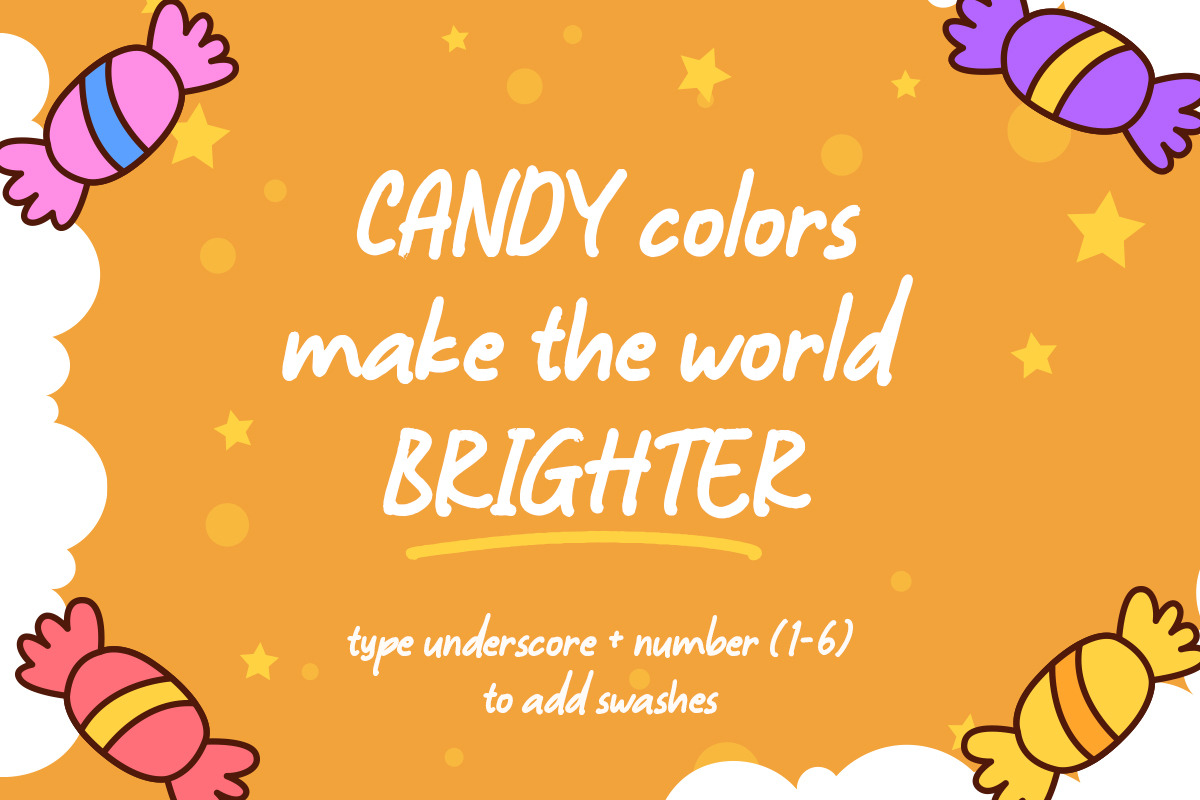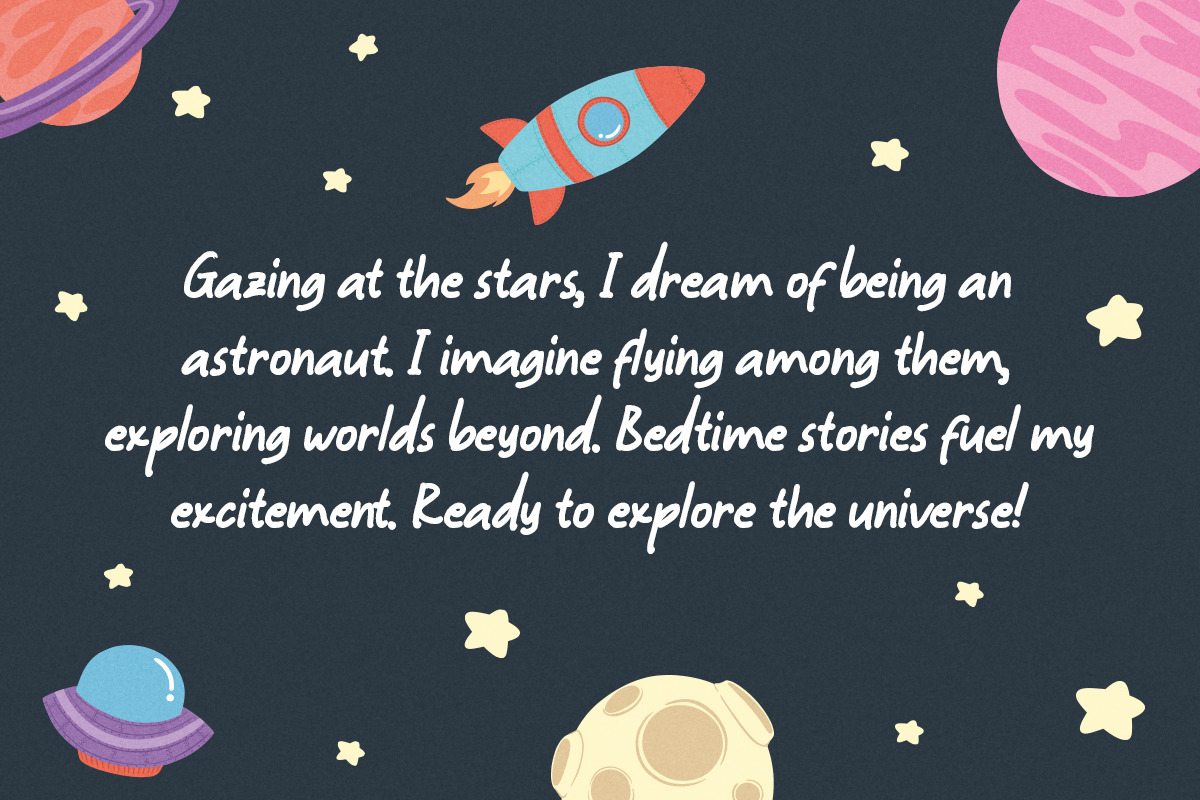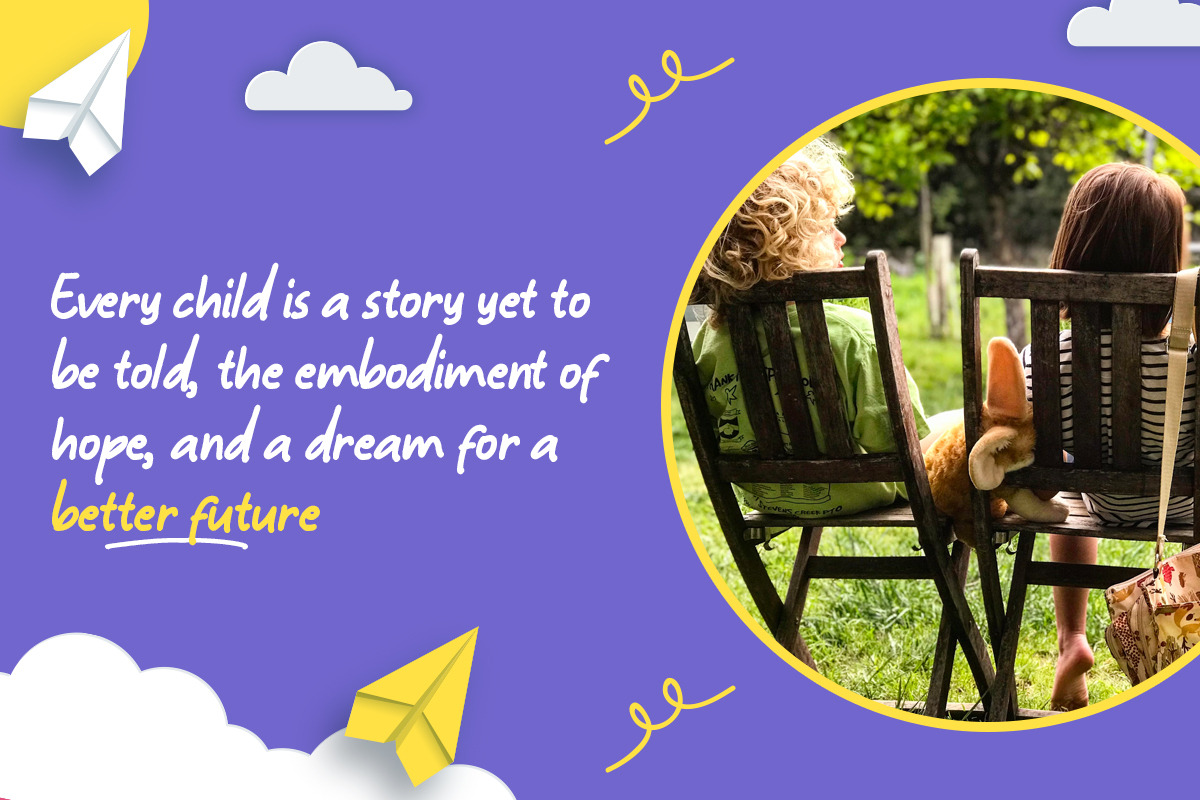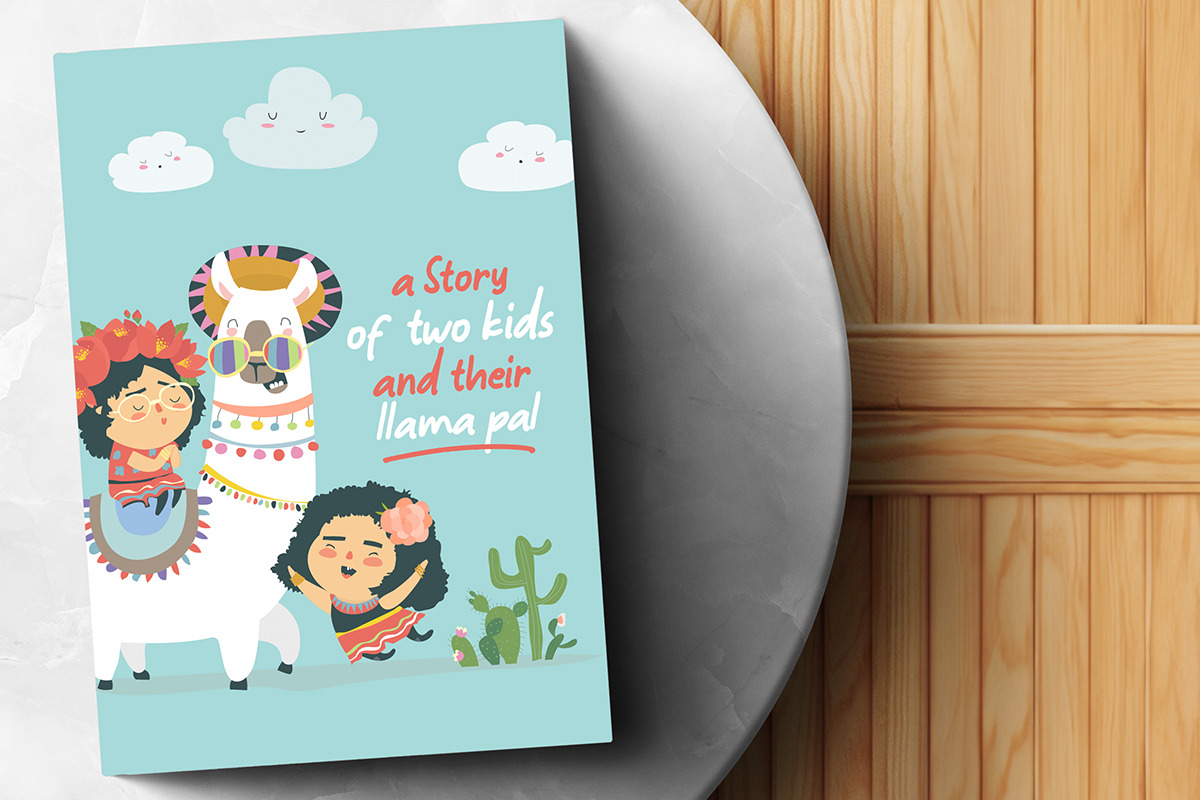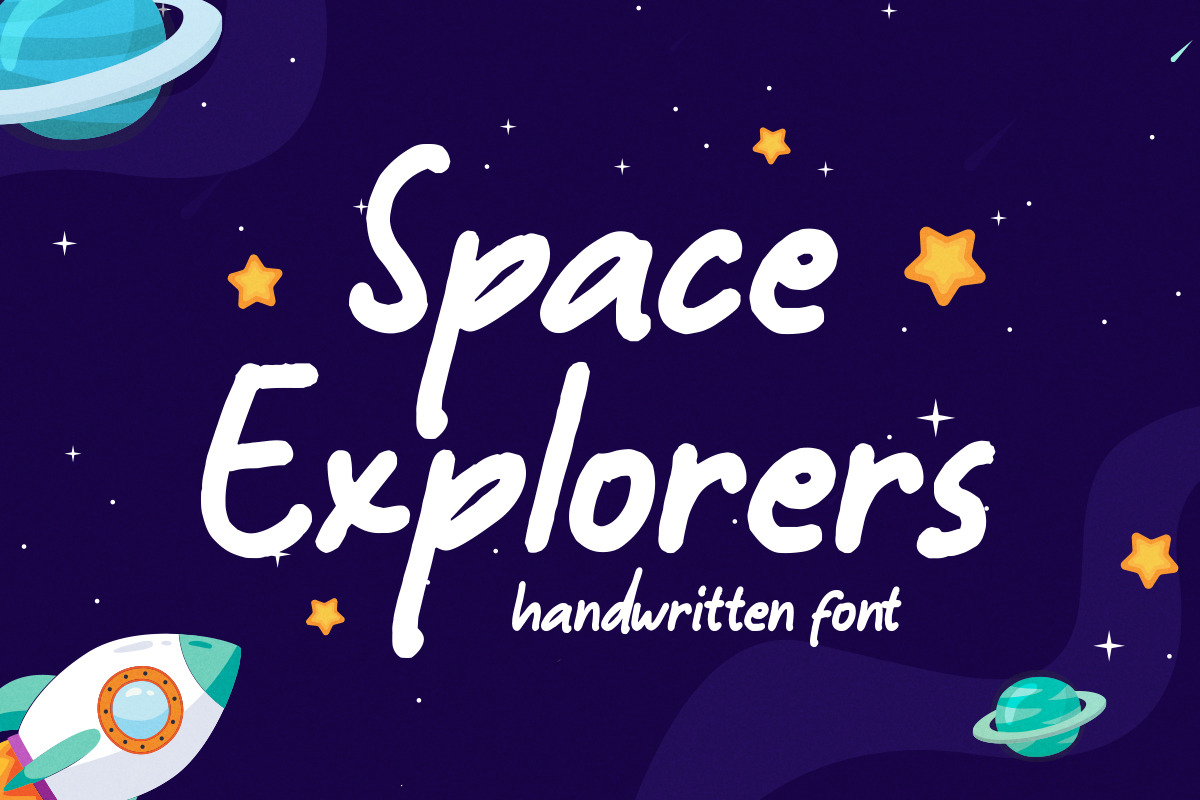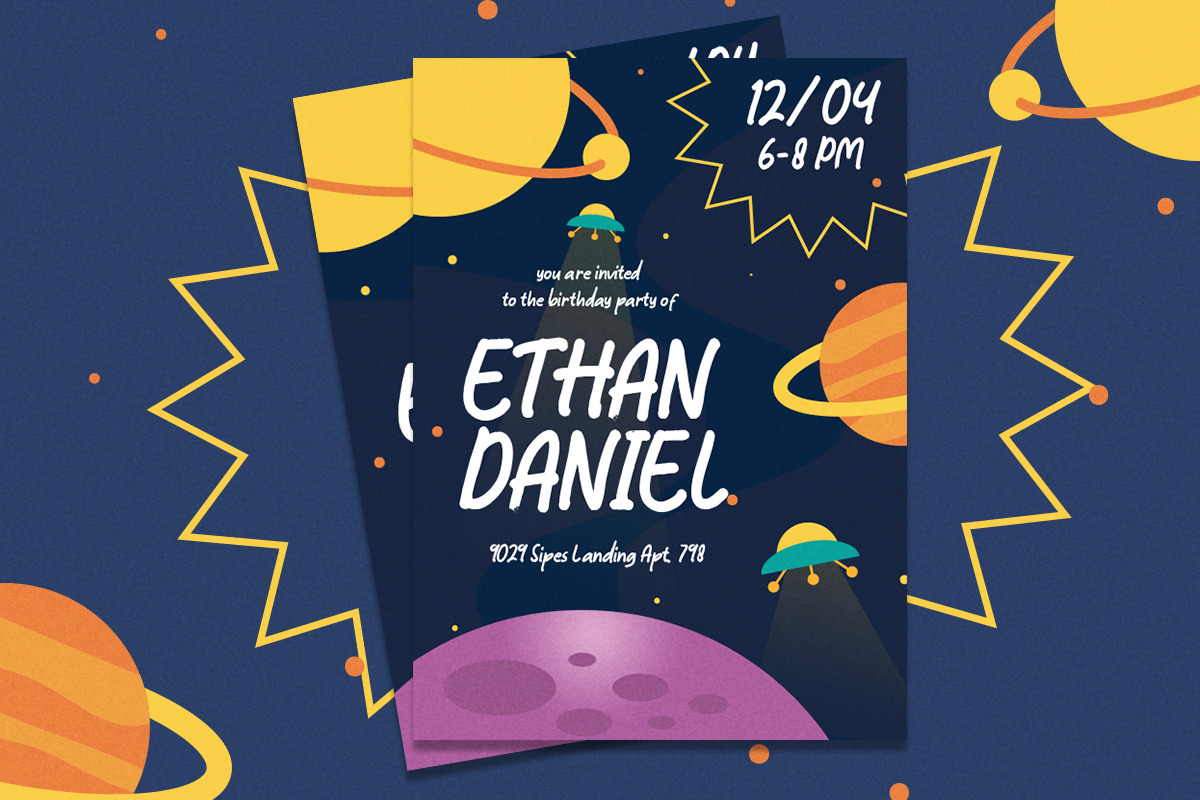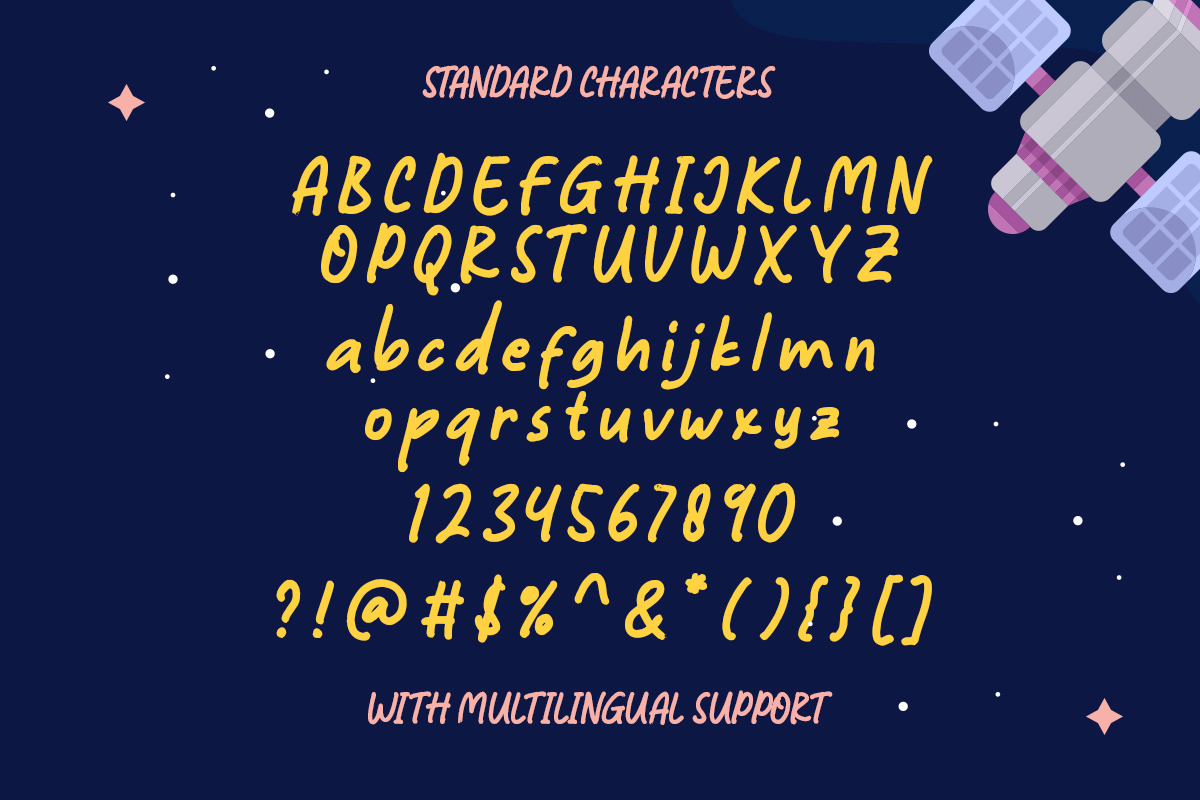
Space Explorers Handwritten Font
Introducing, Space Explorers - A casual handwritten font. This type of font perfectly made to be applied especially in logo, and the other various formal forms such as invitations, labels, logos, magazines, books, greeting / wedding cards, packaging, fashion, make up, stationery, novels, labels or any type of advertising purpose.